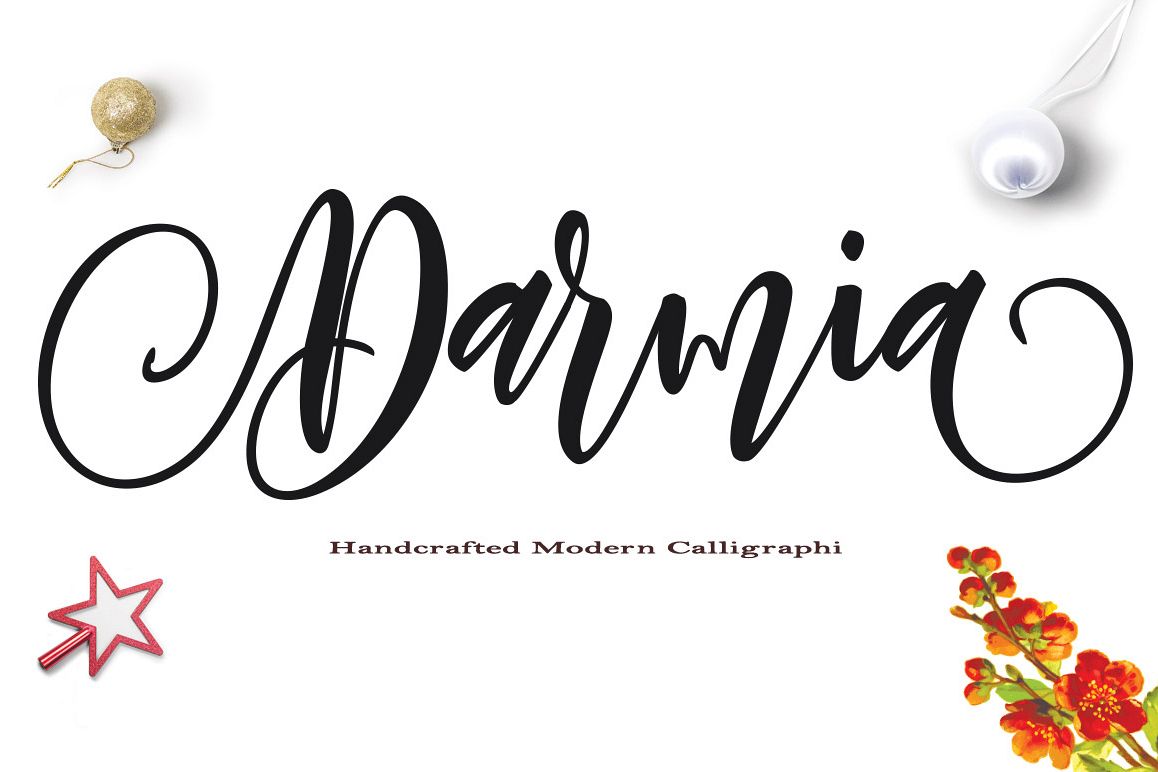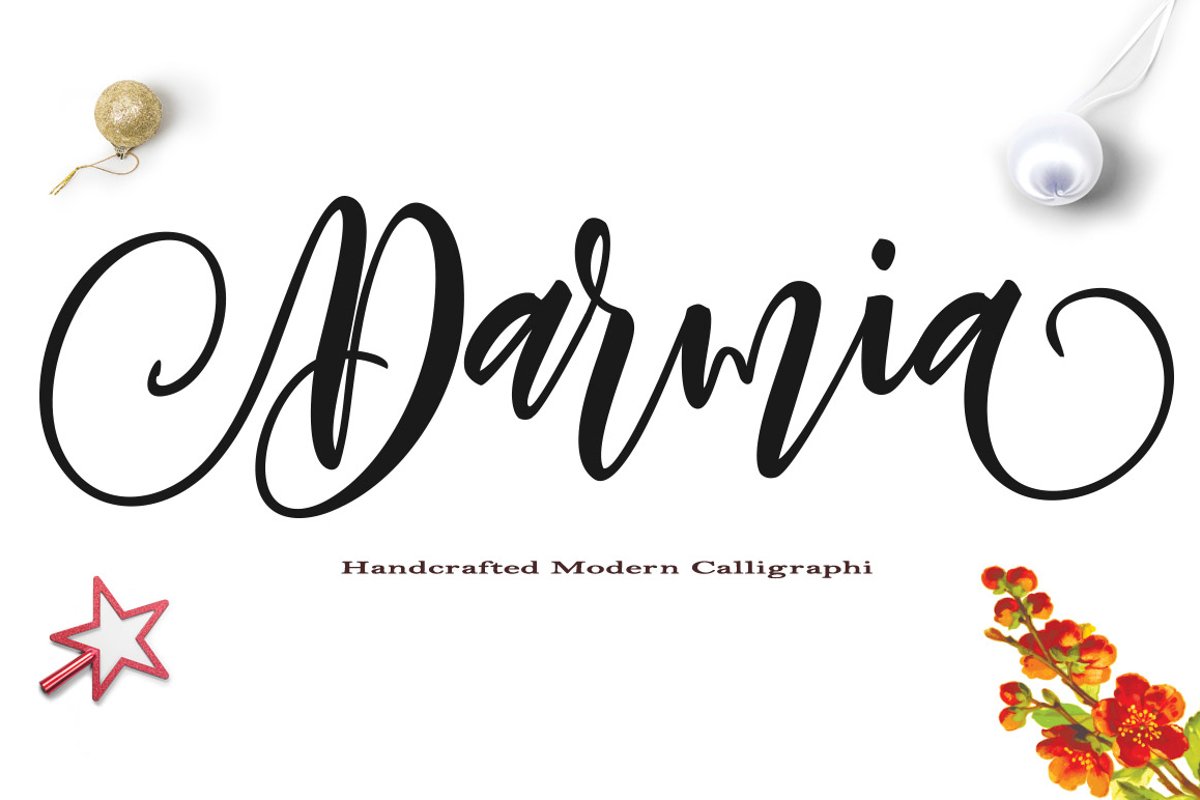
Darmia
Darmia-Regular
Introducing Fonts Scrip Darmia allow you to make tons of gorgeous typographic designs in a jiffy, just in time for all your projects, greeting cards, labels, quotes, posters, wall art, branding, packaging, websites, photo & photography overlays, signs, window art, scrapbooking, tags and so much more!
The Darmia consists of a beautiful swashes for all your labels, cards and branding too!.
Darmia handwriting font that contains characters uppercase and lowercase letters, numbers and various punctuation. There are 582 Font characters in it.